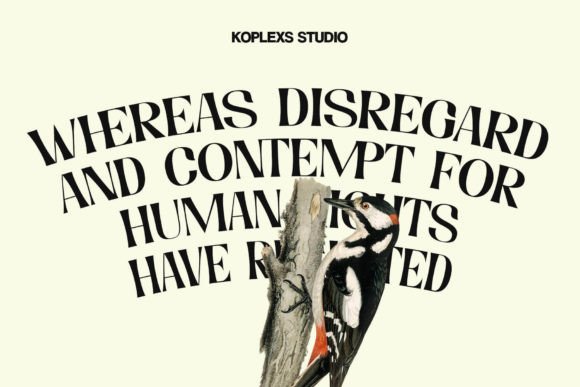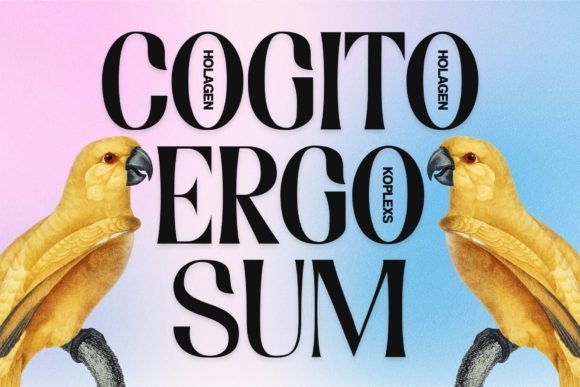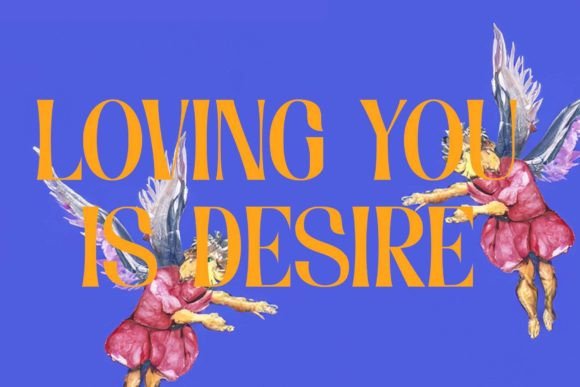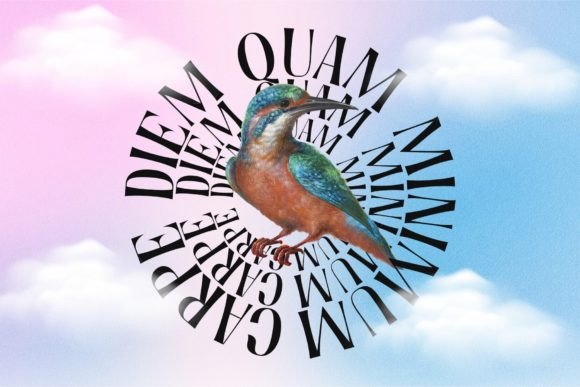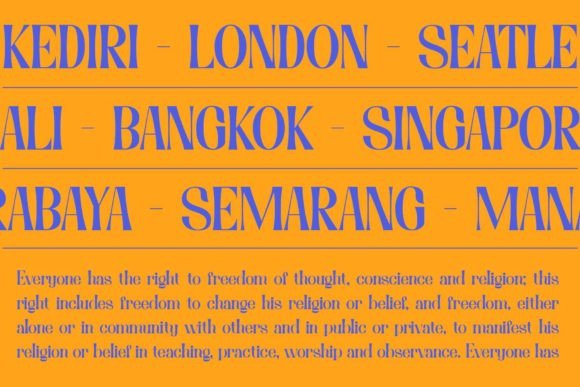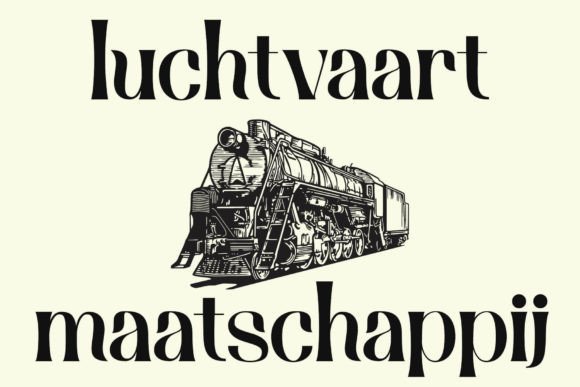
Introduction to Holagen Font
Holagen is a versatile typeface that brings a touch of elegance and creativity to your designs.
This unique font boasts a wide range of alternates and ligatures, allowing for endless customization and a personalized touch in every use Holagen is also multilingual, making it the perfect choice for global projects.
Key Features of Holagen Font
Why Choose Holagen Font?
Holagen Font offers exceptional quality and versatility, making it a valuable addition to your design toolkit. Whether you’re creating for personal projects or commercial use, Holagen Font delivers professional results.